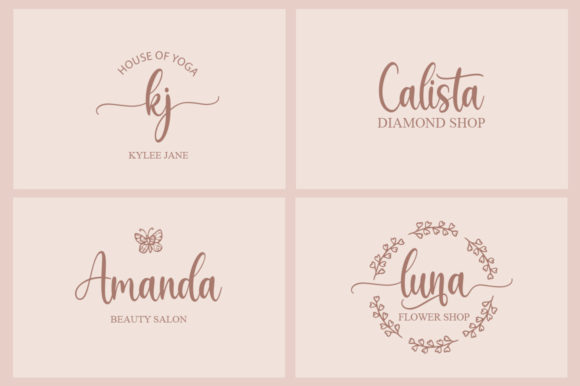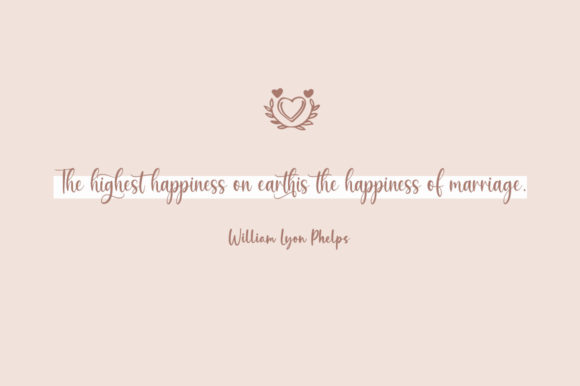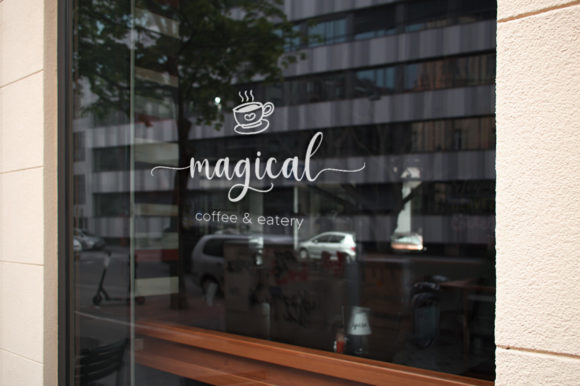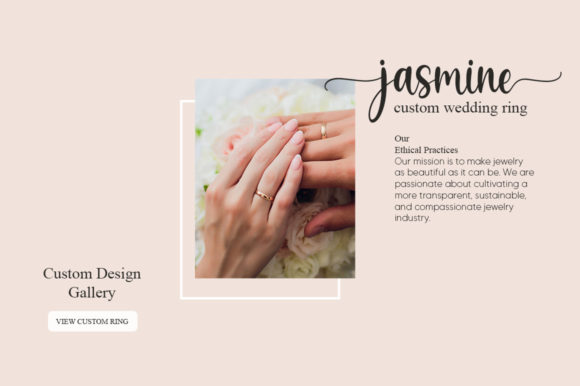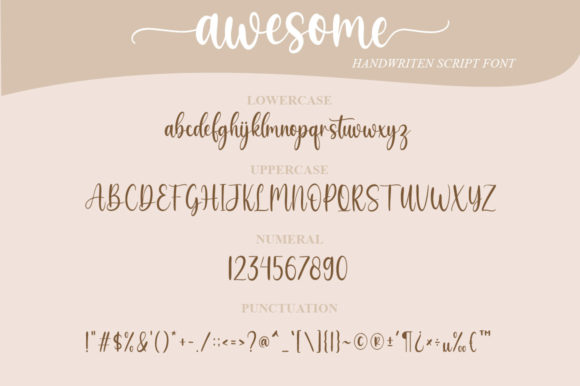
The Awesome Font: A Playful Script to Elevate Your Designs
I’ll never forget the time I was working on a branding project for a children’s party planning service. I had nailed the color palette and overall aesthetic, but something was missing – the perfect font. That’s when I stumbled upon the Awesome font, and it instantly brought my design to life! In this article, I’ll share my experience with this lovely script font, its features, and how to make the most of it in your designs.
An Honest Review of Awesome Font
- ✨ Charming, playful characters that seem to dance along the baseline
- ✅ PUA encoded for easy access to all glyphs and swashes
- 💃 Highly versatile and perfect for a variety of design projects, from invitations to branding
- 👍 Well-suited for both digital and print designs
While the Awesome font is amazing, there are a few things to keep in mind:
- ⚠️ Some characters may require manual adjustment for optimal spacing
- 🤔 Limited availability of certain characters or swashes in certain platforms or software
A Practical Guide to Using Awesome Font
The Story Behind Awesome Font
The Awesome font was designed with the intention of creating a playful, yet elegant script font. The designer aimed to craft a font that would bring a sense of joy and whimsy to any design project. With its charming characters and PUA encoding, Awesome font has become a popular choice among designers and crafters.
| Font Name | Awesome Font |
| Author | Graphix Line Studio |
A: PUA (Private Use Area) encoding allows font users to access a wide range of glyphs and swashes, making it easier to create unique and customized designs.
Q: Is Awesome font suitable for body text?
A: While Awesome font is beautiful, it’s best suited for headlines, titles, and short paragraphs. For body text, a more traditional font may be more readable.